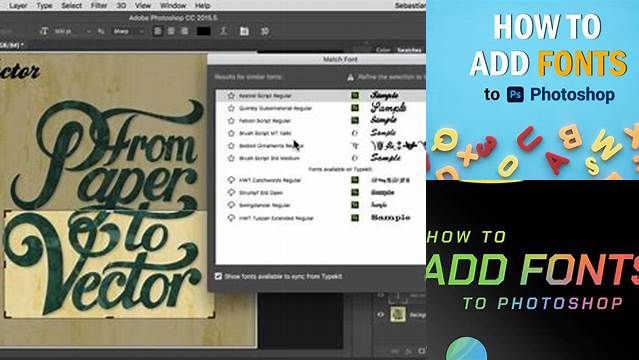
When browsing fonts, consider the following:
- Legibility: Make sure the font is easy to read, especially at the size you'll be using it.
- Style: Choose a font that matches the overall tone and style of your project.
- Download the Font Files: Once you find a font you like on any of the websites mentioned above, click the download button. The font files will typically download as a .zip file, a .ttf file, or an .otf file.
- Extract the Files (If Necessary): If the file is a .zip file, double-click it to extract the contents. This will usually give you the .ttf or .otf files.
- Organize Your Fonts: It's a good idea to create a folder on your computer to store all your downloaded fonts. This will help you keep things organized and make it easier to find your fonts later. I usually create a folder named "Fonts" in my "Documents" or "Downloads" folder.
- Check for Multiple Font Files: Some font families come with multiple files, such as regular, bold, italic, and different weights. Make sure you download all the variations you want to use.
Once your fonts are downloaded and organized, you're ready to install them. Let's move on to the installation process, which is incredibly simple!
Installing Fonts on Your Computer: The Quick and Easy Method
Alright, the fonts are downloaded and ready to go. Now it's time to install them on your computer. The process is slightly different depending on whether you're using Windows or macOS, but it's generally pretty easy. Learning how to add fonts in Photoshop CC 2026 also means understanding how to install them on your operating system.
Exploring Different Font Styles and Their Applications
Knowing how to add fonts in Photoshop CC 2026 is one thing, but understanding the different font styles and when to use them is another. Different font styles evoke different emotions and work best for different purposes. Let's explore some common font styles:
- Serif Fonts: Serif fonts have small strokes, or